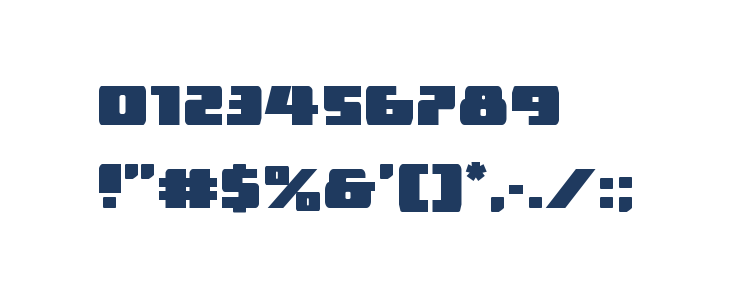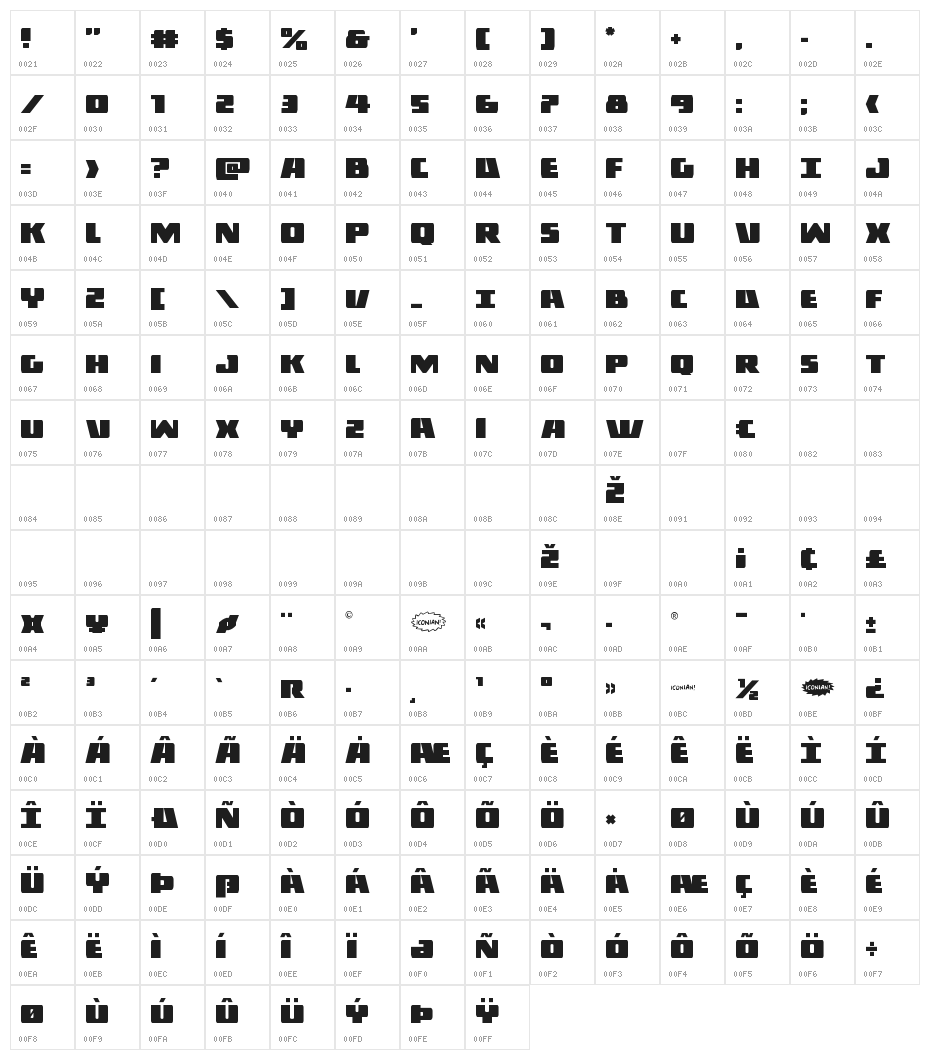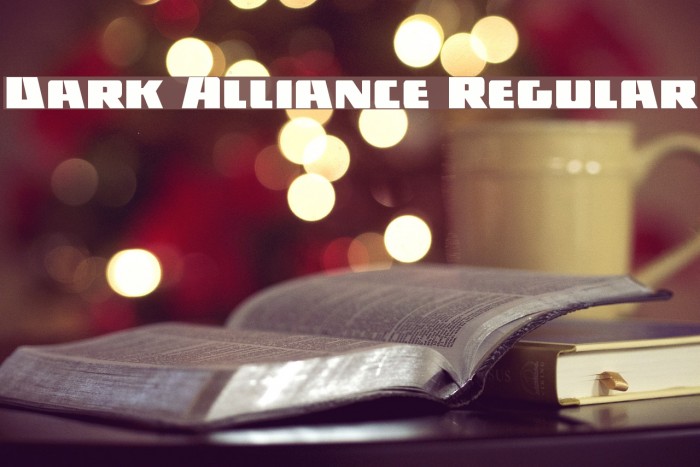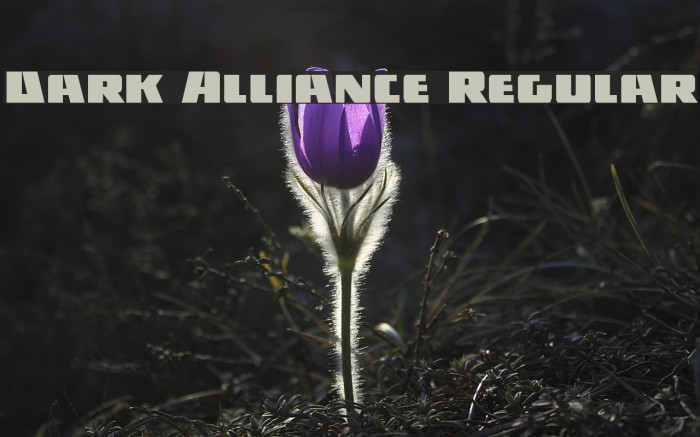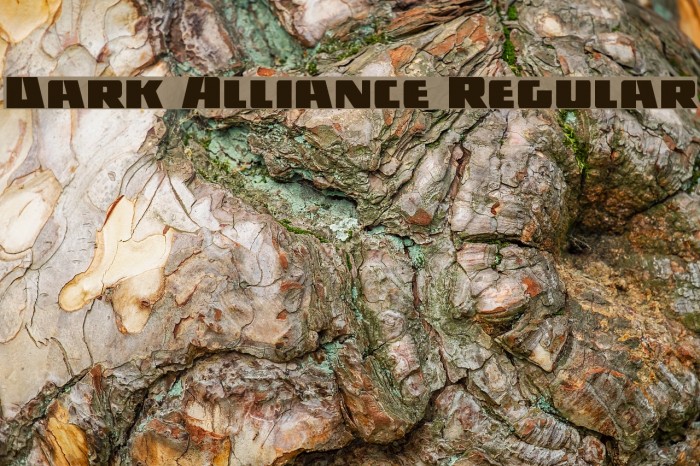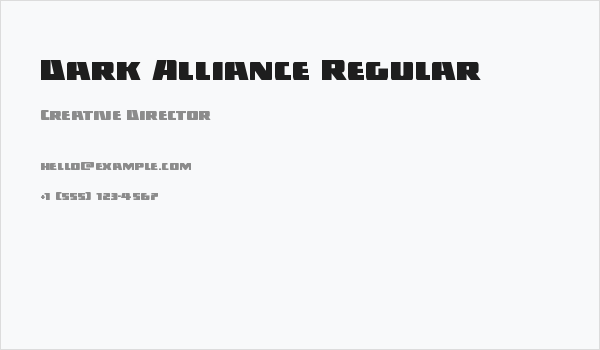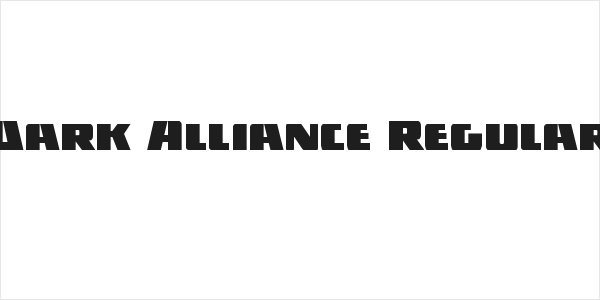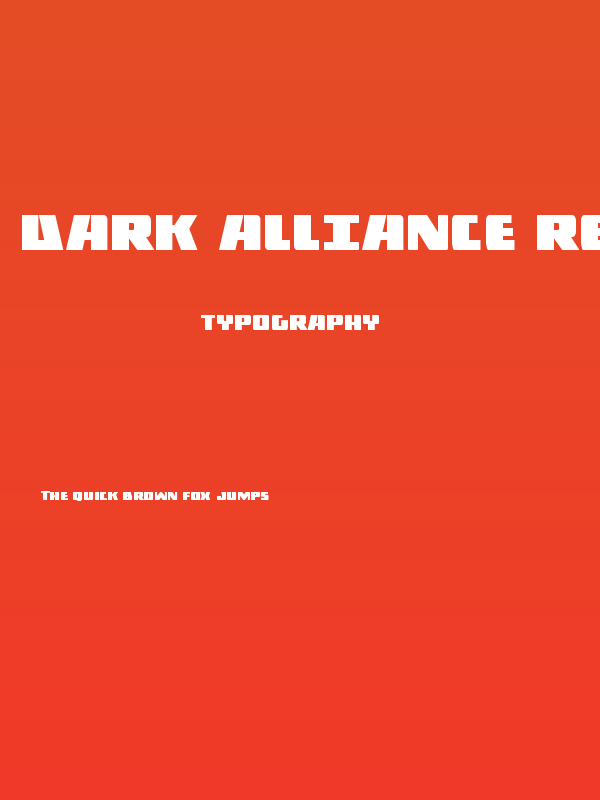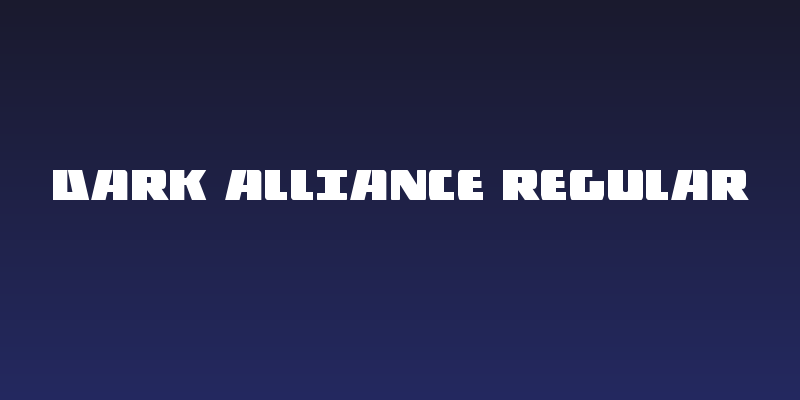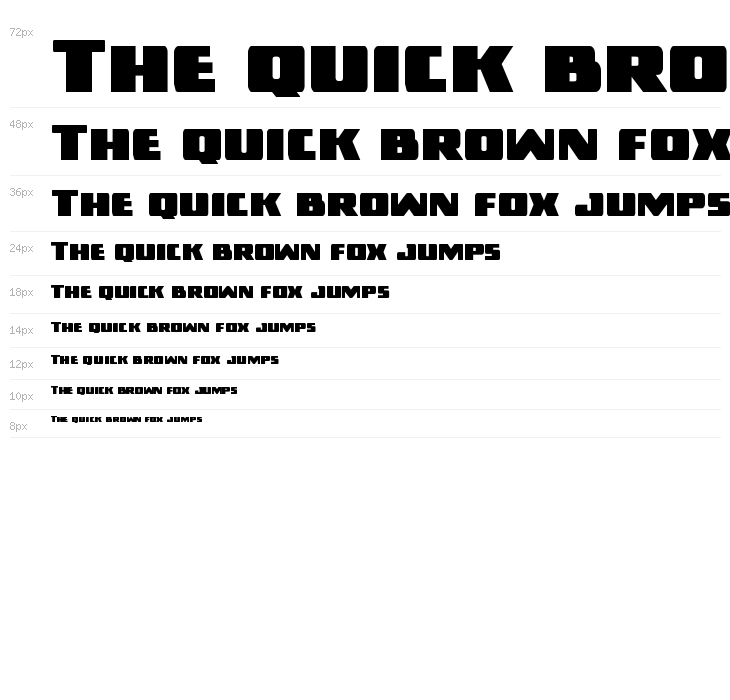
Dark Alliance Regular Font
Dark Alliance Regular Description
This font features a bold, geometric design with strong, angular shapes and a futuristic aesthetic. The uppercase letters are particularly striking, with a blocky appearance that emphasizes sharp angles and straight lines. The lowercase letters maintain a similar style, ensuring consistency throughout. Numbers and special characters are designed to match the boldness and angularity of the alphabet, making this font ideal for impactful and attention-grabbing designs. The overall look is modern and assertive, suitable for projects that require a strong visual presence.
Proposed ProjectsIdeal for video game titles, sci-fi movie posters, tech branding, and any project needing a modern, bold aesthetic.